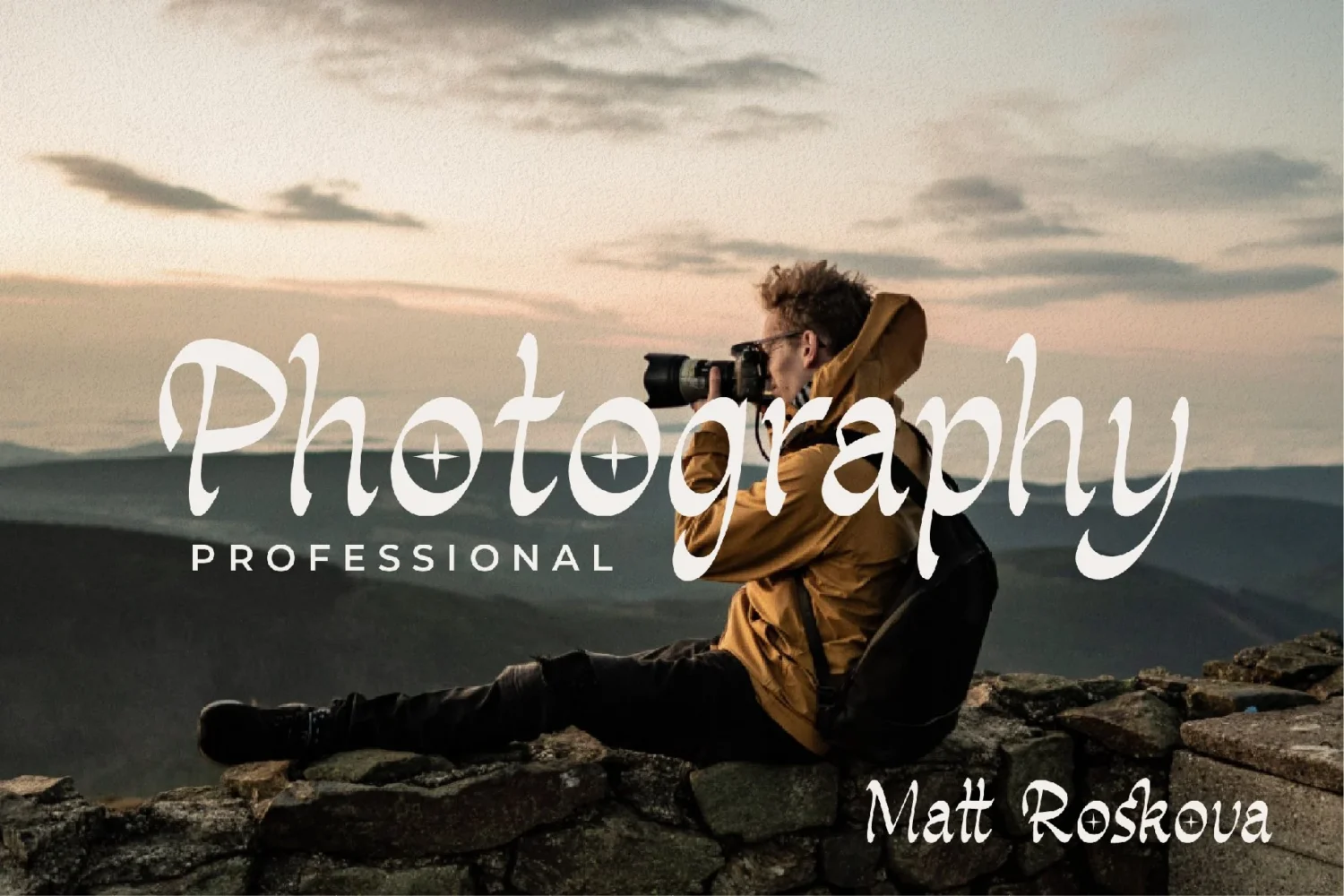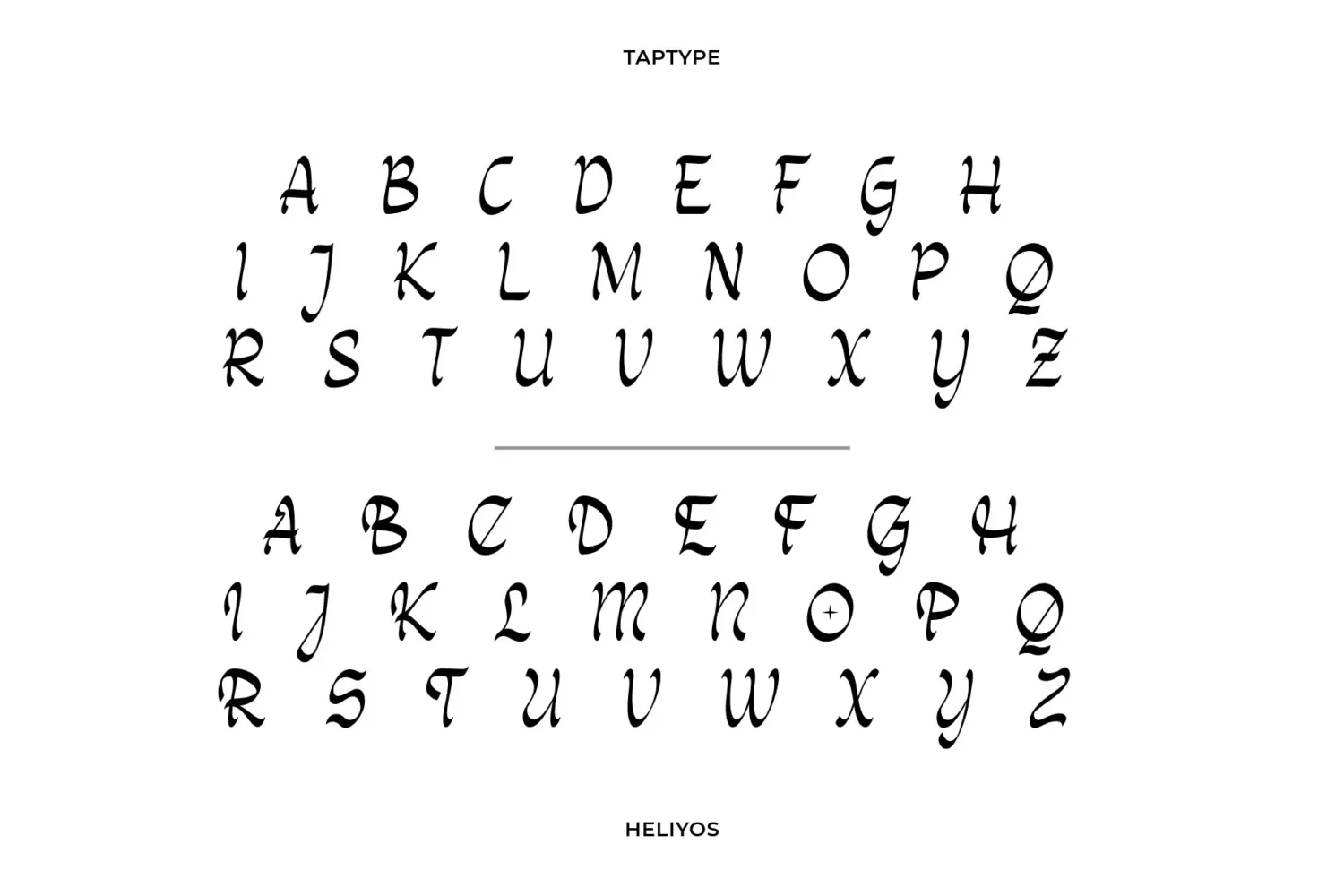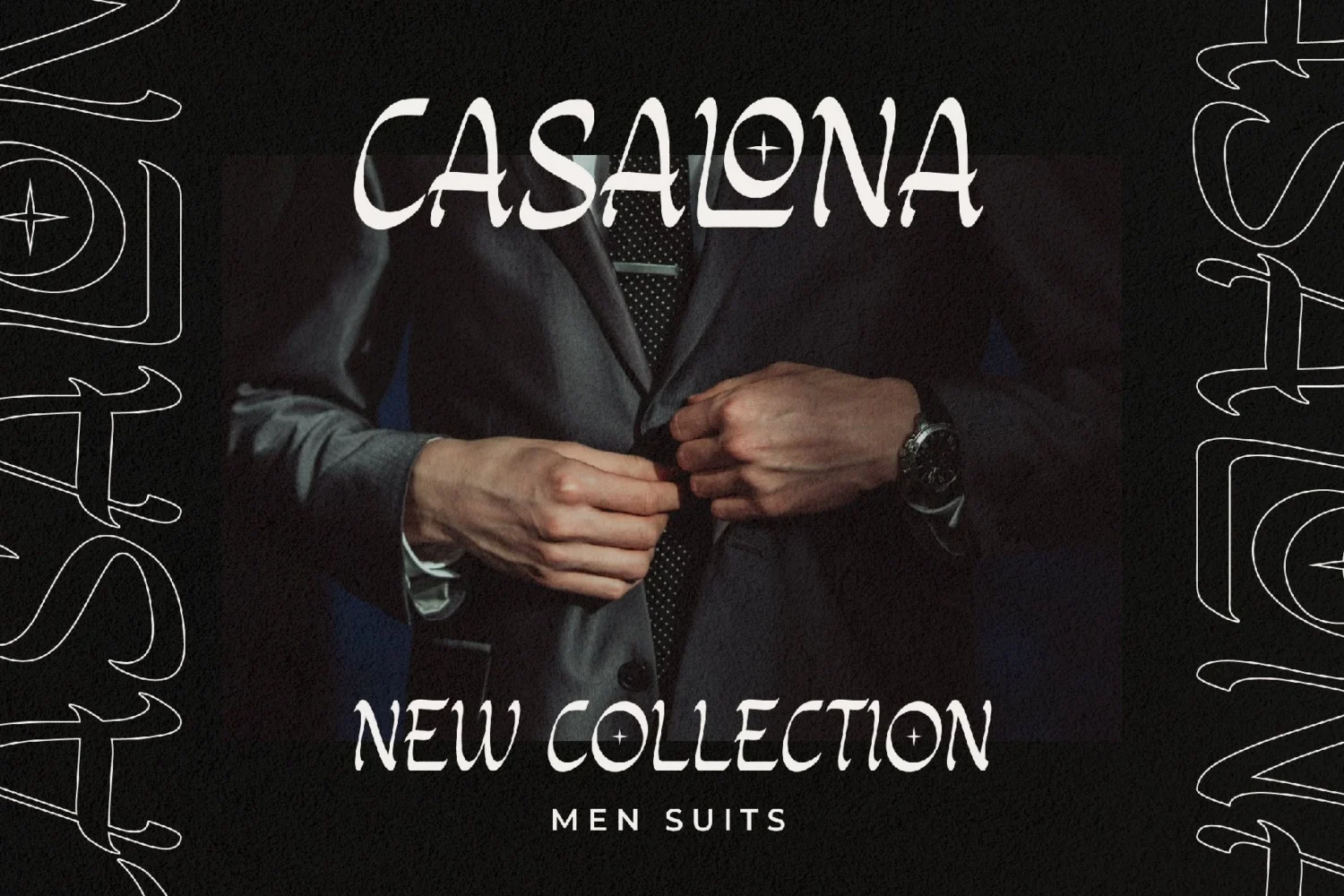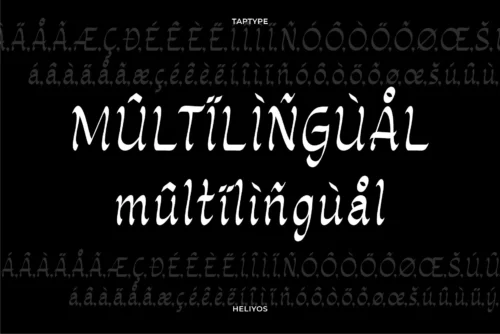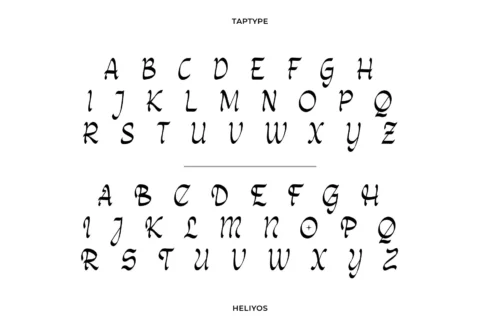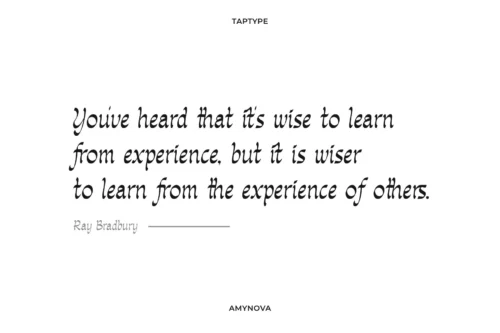
Amynova
Amynova is a mixing between script with classic font with ligature Serif. Minimalist character that allowing you to easily edit the designs. It is perfect for branding, logo, wedding invites and cards, and maybe for some project.
• More than +50 Special ligatures
Amynova – Display Serif Font